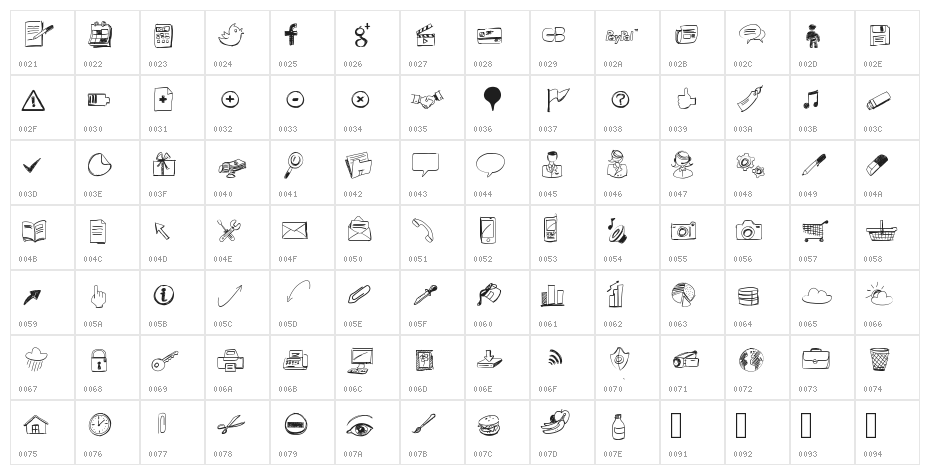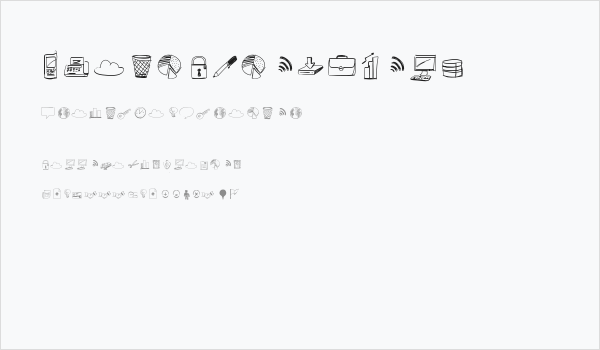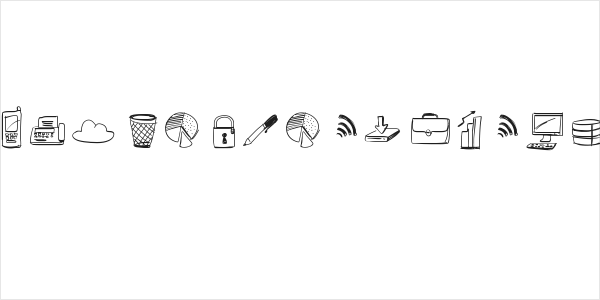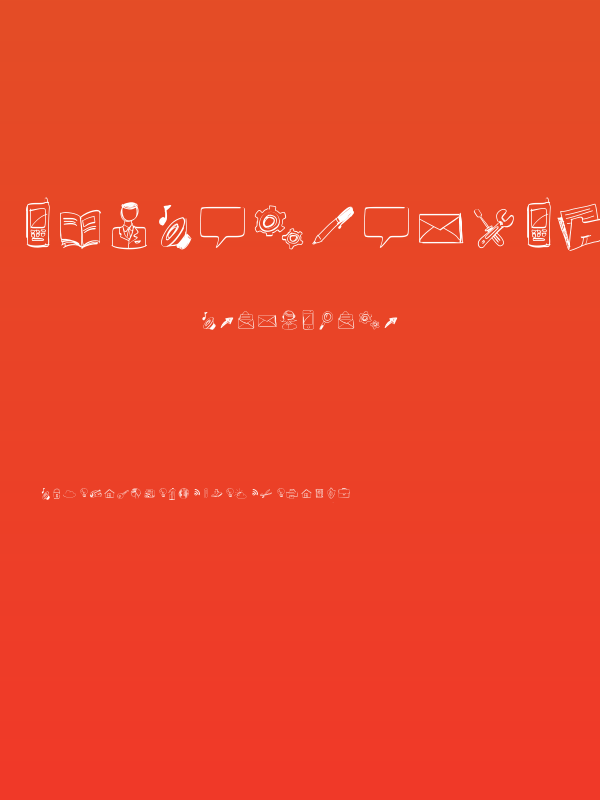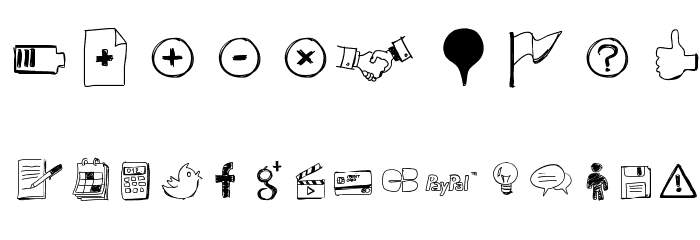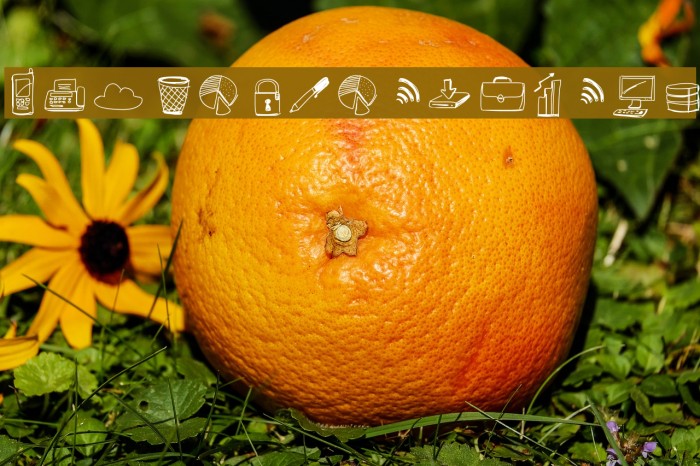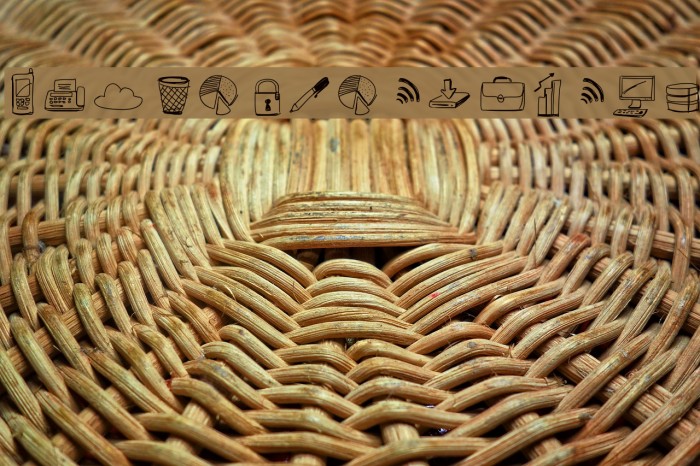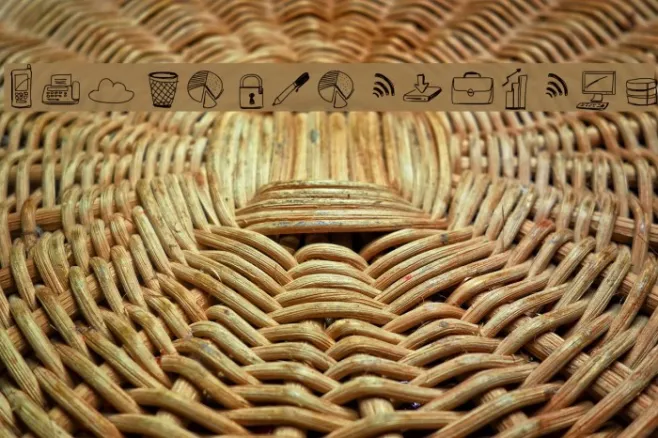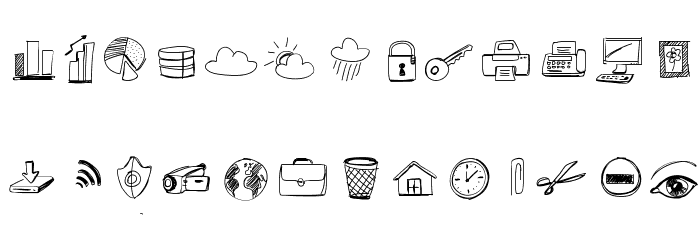
SketchIconsbold Font
SketchIconsbold Description
A playful, hand-drawn icon set with a sketchy, informal style, featuring a wide range of business, communication, and web-related symbols. The lines are uneven and organic, giving a casual, approachable feel.
| Overall Style | Decorative, Playful, Hand-drawn |
| Use Case | Icons, UI elements, infographics, creative branding |
| Proposed Projects | Web and app UI, educational materials, infographics, creative presentations, children's content. |